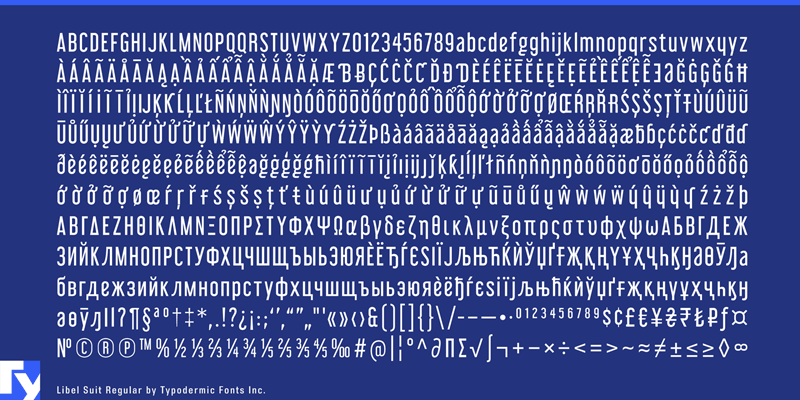
Libel Suit is a narrow, hardworking sans serif typeface. It comes in 6 weights and italics. A conventional g and y can be accessed using your application's stylistic alternates feature. OpenType numerical ordinals and fractions are included as well as Greek, Extended Cyrillic and Pan-Nigerian characters. This font includes a license that allows free commercial use: sometimes referred to as a desktop license. This allows you to install the font on a computer and use it to create posters, web graphics, game graphics, t-shirts, videos, signs, logos and more. Read the license agreement for details. If you'd like to embed this font in an app, ebook, on the web or anything that's not covered by the desktop license agreement, visit the link below. You'll find distributors who offer different types of licenses or you can contact me for help. http://typodermicfonts.com/libel-suit/ |